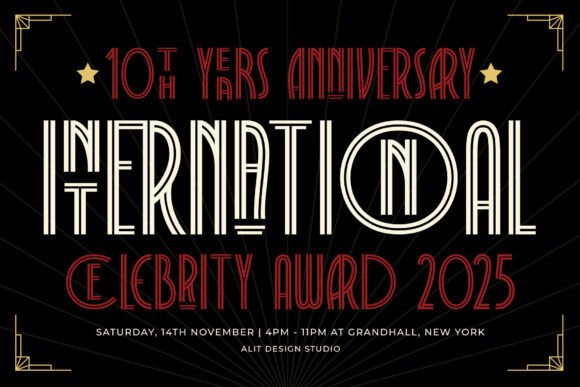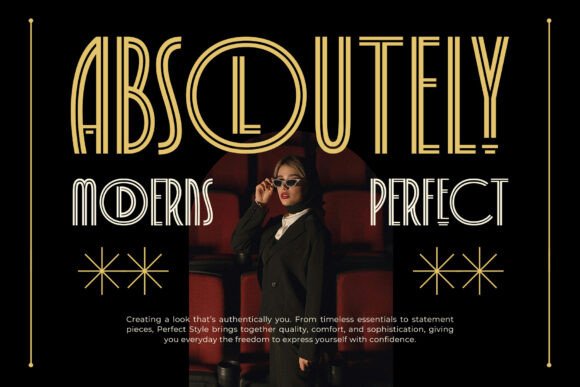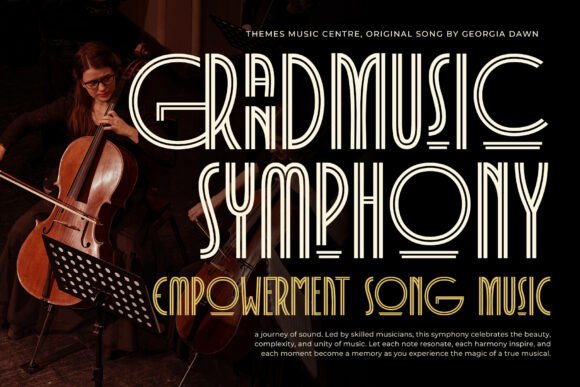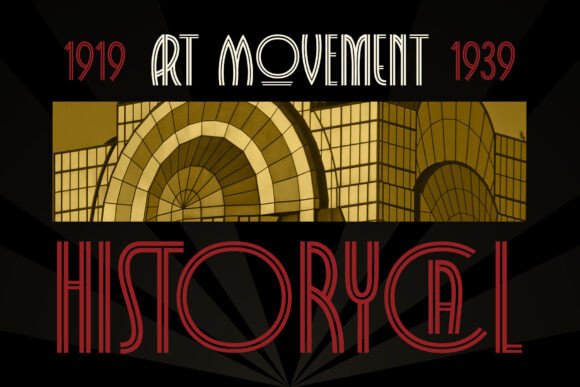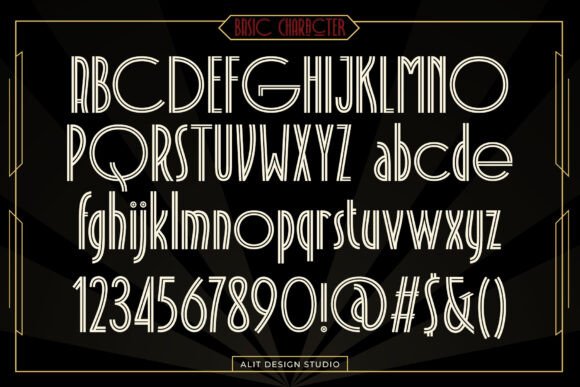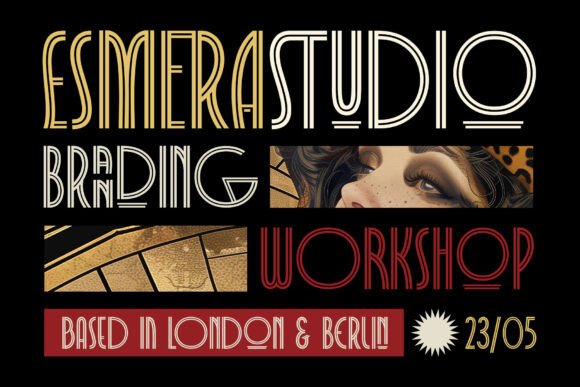
Introducing Decola Font: The Epitome of Art Deco Elegance
In the realm of typography, few typefaces capture the essence of luxury and sophistication as effortlessly as the Decola Art Deco Typeface. This stunning font is a masterful blend of elegance and vintage charm, drawing inspiration from the bold and opulent aesthetics of the Art Deco era. With its unique dynamic 2-line body, Decola creates a sense of movement and refinement, making it the perfect choice for designers seeking to infuse their projects with a touch of timeless luxury.
The Art Deco Era: A Legacy of Opulence and Elegance
The Art Deco movement, which emerged in the 1920s and flourished until the 1940s, was a celebration of modernity, luxury, and glamour. Characterized by its use of geometric shapes, metallic materials, and ornate decorations, Art Deco influenced a wide range of artistic disciplines, from architecture and interior design to fashion and typography. The Decola Art Deco Typeface is a nod to this iconic era, distilling its essence into a versatile and sophisticated font.
Decola Art Deco Typeface: A Masterful Blend of Form and Function
The Decola Art Deco Typeface is defined by its distinctive dynamic 2-line body, which sets it apart from other typefaces. This innovative design creates a sense of movement and energy, while maintaining an air of elegance and refinement. The font’s bold and opulent aesthetic makes it ideal for use in luxury branding, high-end advertising, and sophisticated editorial design.
Key Features of Decola Art Deco Typeface
- Dynamic 2-line body: Creates a sense of movement and sophistication
- Art Deco-inspired aesthetic: Bold, opulent, and luxurious
- Timeless elegance: Perfect for designs that aim to evoke a sense of vintage luxury
- Versatile and adaptable: Suitable for a wide range of design applications
Design Applications for Decola Art Deco Typeface
The Decola Art Deco Typeface is a versatile font that can be used in a variety of design applications, including:
- Luxury branding: Create high-end logos and wordmarks that exude sophistication and elegance
- Advertising and marketing: Use Decola to create eye-catching headlines and promotional materials that command attention
- Editorial design: Add a touch of luxury to magazines, newspapers, and digital publications
- Packaging design: Elevate product packaging with a sophisticated and elegant font
Why Choose Decola Art Deco Typeface?
In a world where typography plays a crucial role in shaping brand identity and aesthetic, the Decola Art Deco Typeface stands out as a true asset for designers. Here are just a few reasons why:
- Unique and distinctive: Decola’s dynamic 2-line body sets it apart from other typefaces
- Timeless elegance: The font’s Art Deco-inspired aesthetic ensures it will remain stylish for years to come
- Versatile and adaptable: Suitable for a wide range of design applications and industries
The Decola Art Deco Typeface is a true masterpiece of typographic design, offering a perfect blend of elegance, sophistication, and vintage charm. Whether you’re a designer, craftsperson, or simply someone who appreciates the art of typography, Decola is an exceptional choice for any project that demands luxury and refinement. With its unique dynamic 2-line body and bold, opulent aesthetic, Decola Art Deco Typeface is poised to become a timeless classic in the world of typography.